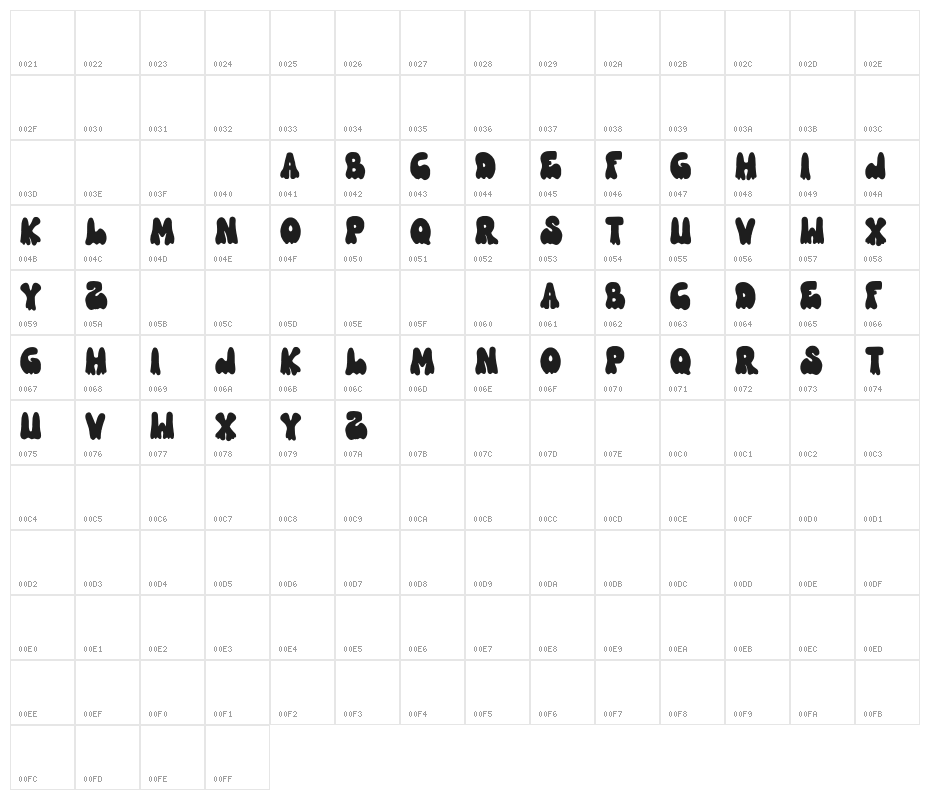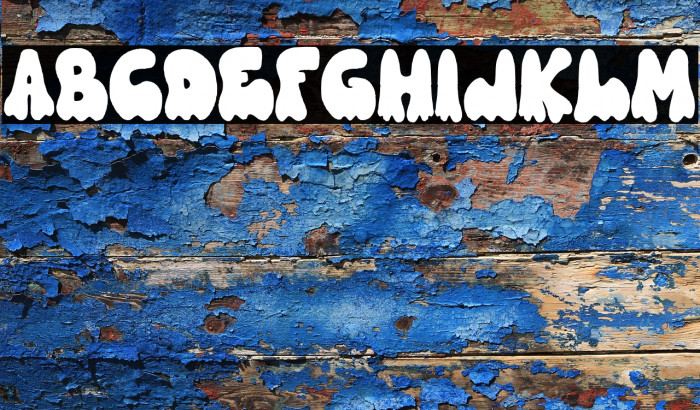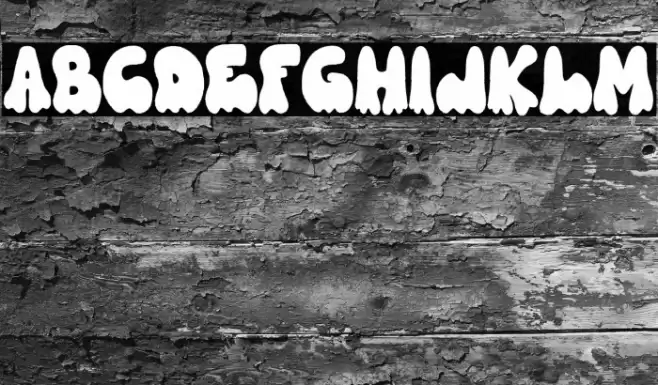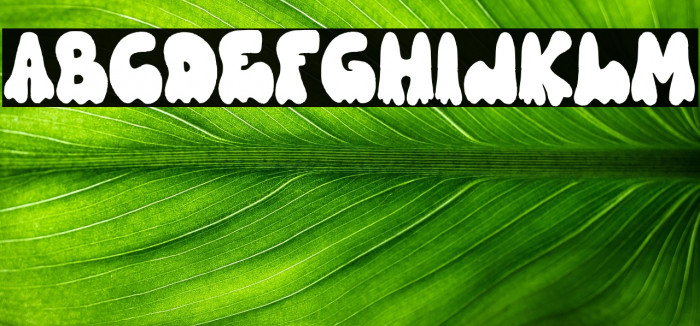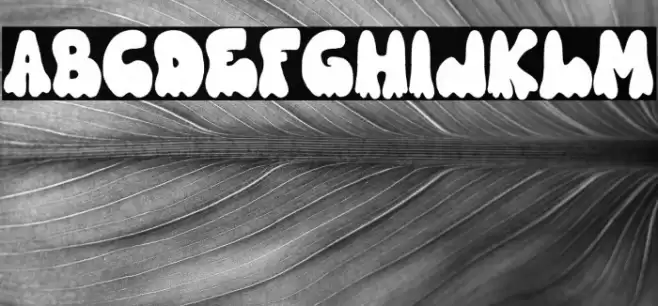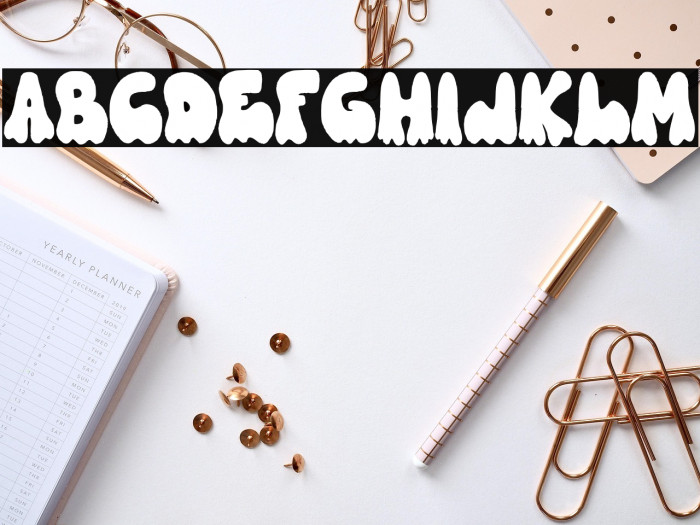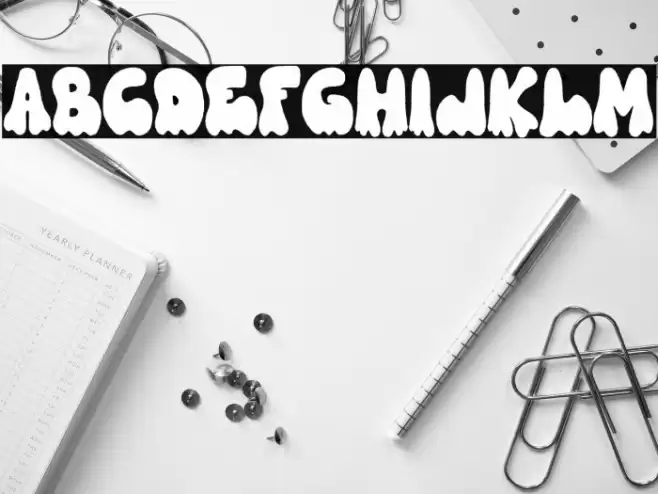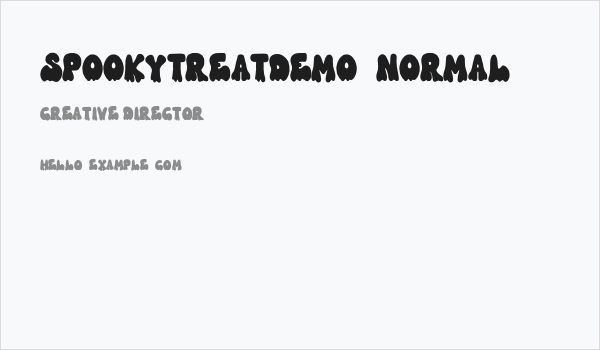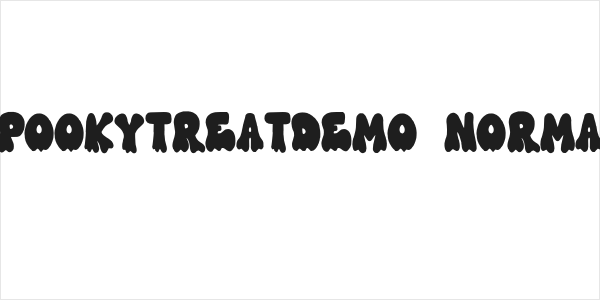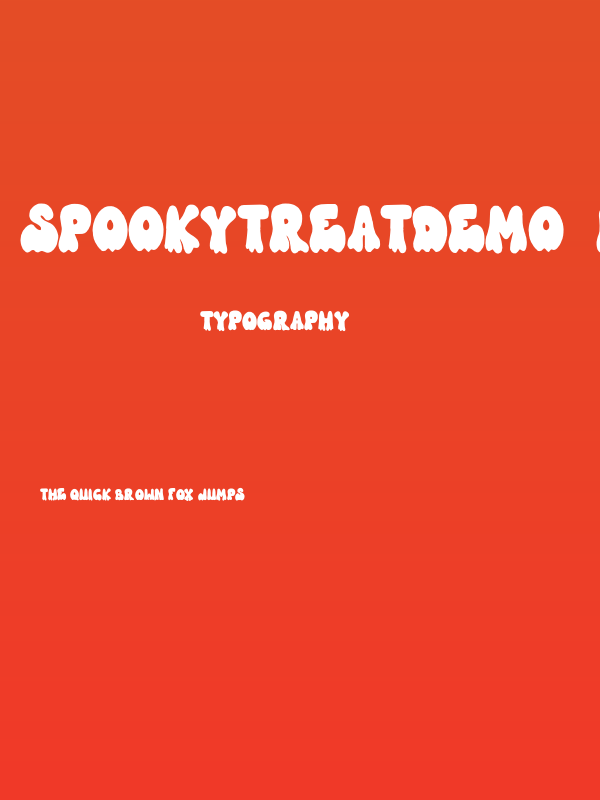
SpookyTreatDEMO-Normal Font
SpookyTreatDEMO-Normal Description
This font features a playful, spooky design with characters that appear to be dripping or melting, reminiscent of a Halloween theme. The bold, rounded shapes give it a friendly yet eerie appearance, making it ideal for seasonal or themed projects. The uppercase and lowercase letters maintain a consistent style, with exaggerated curves and a slightly irregular baseline that adds to its whimsical nature. The numbers and special characters follow the same design principles, ensuring a cohesive look across all text elements.
| Proposed Projects | Perfect for Halloween party invitations, themed posters, children's book covers, and festive banners. |